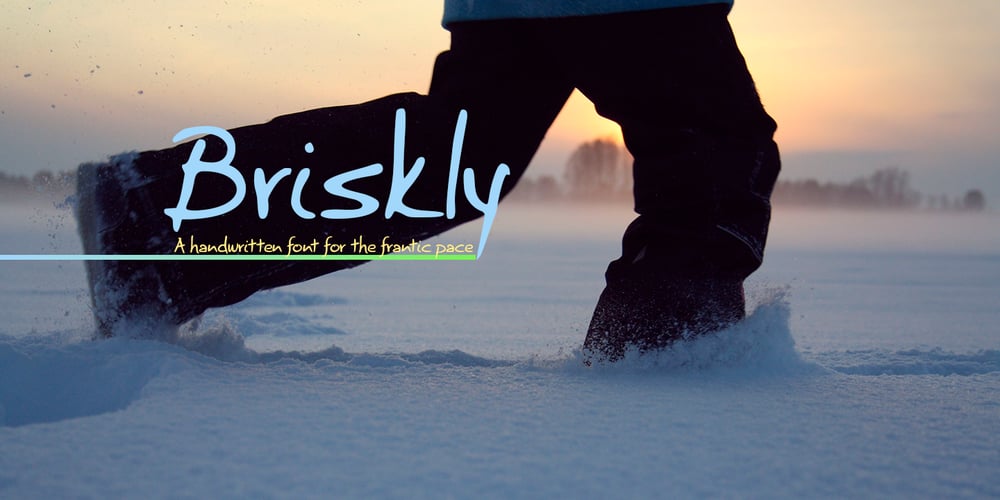
Briskly Font Family was designed by David Bergsland and published by Hackberry Font Foundry. Briskly contains 1 styles and family package options. There were several motivations for this font. It was a font in my style, a left-handed designer. But also, I wanted a script designed to work with ePUBs. This means fancy bullets in place of some of the ASCII characters—since ePUB readers do not support OpenType at all. Basically, I just had fun with it. The heifer for the mu figure cracks me up. What can I say?